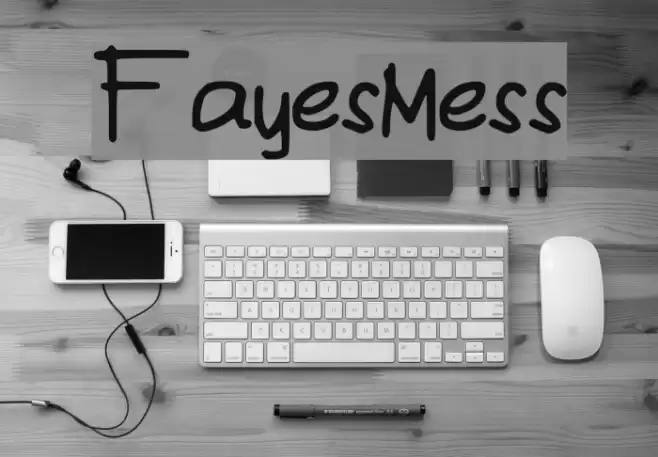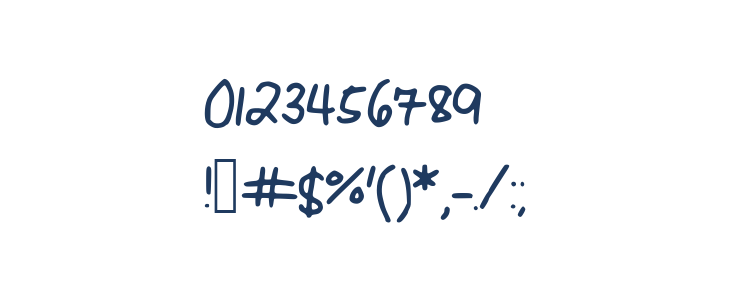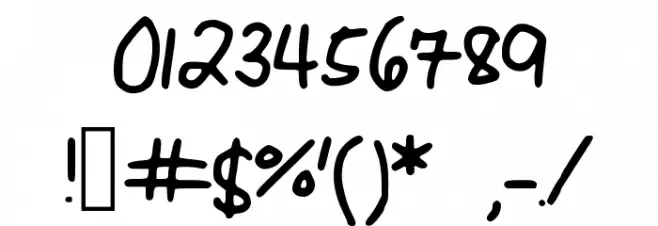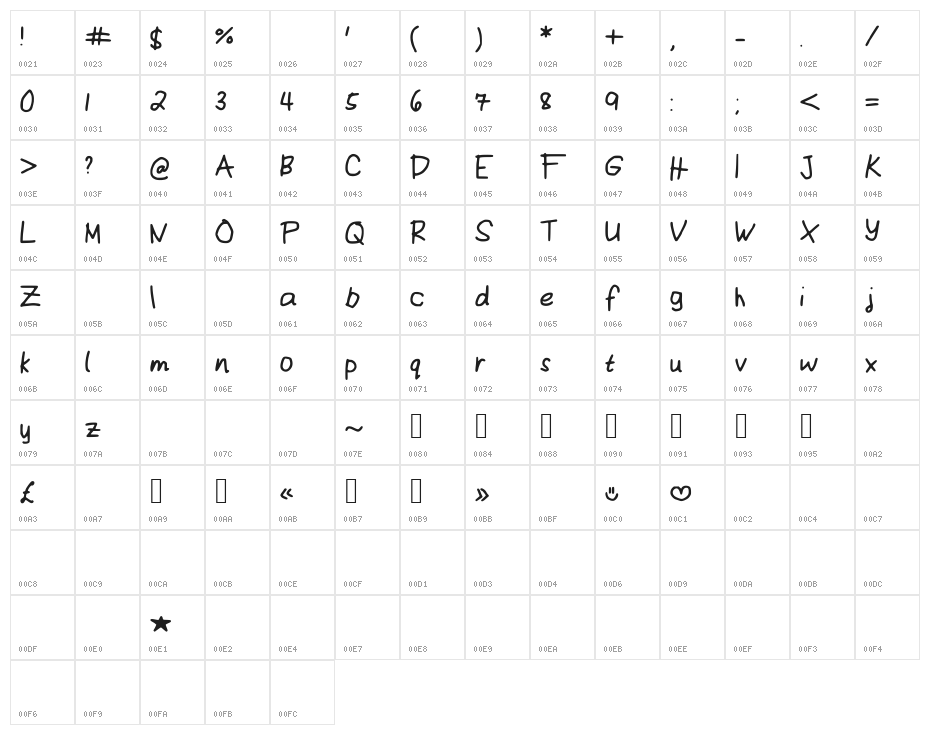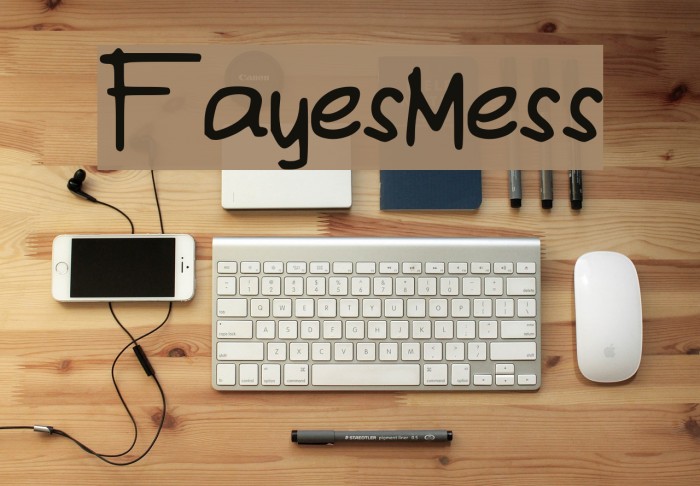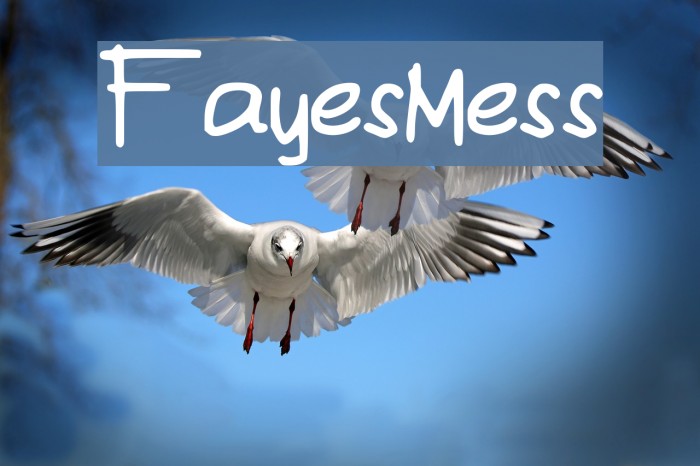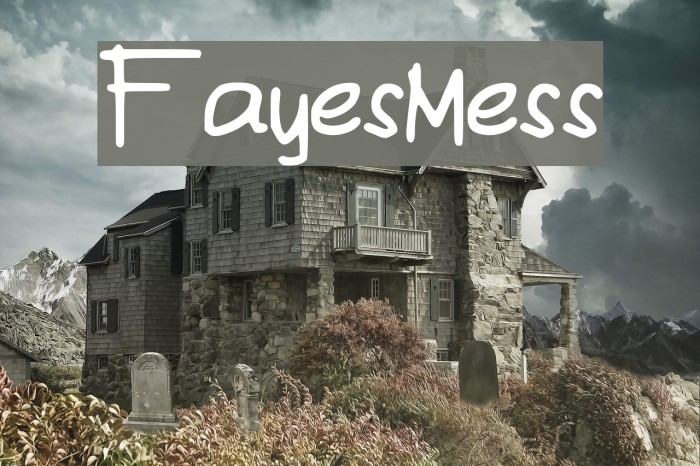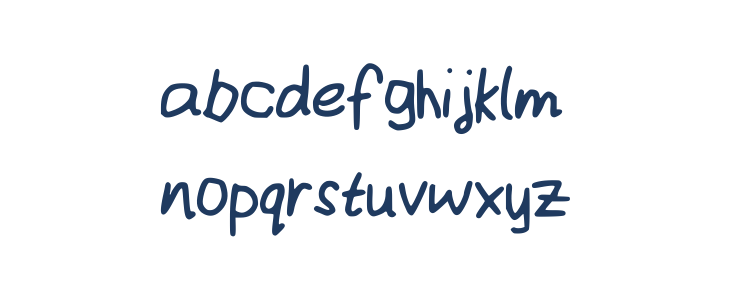
This font features a playful and casual handwritten style, characterized by its irregular strokes and slightly uneven baseline. The uppercase letters are bold and prominent, while the lowercase letters maintain a consistent flow with a touch of whimsy. The numerals are clear and easy to read, matching the overall informal aesthetic. Special characters are creatively designed, adding to the font's charm. This font is ideal for projects that require a personal touch, such as greeting cards, invitations, or playful branding.
A playful, casual handwritten font with bold uppercase and whimsical lowercase letters from Uncategorized fonts.
- Proposed Projects: Greeting cards, invitations, playful branding, children's books, and casual digital content.
- Overall Style: Casual, Playful
- Use Case: Headlines, Logos, Informal Text